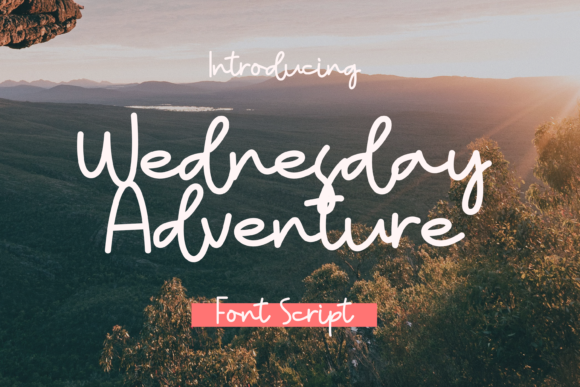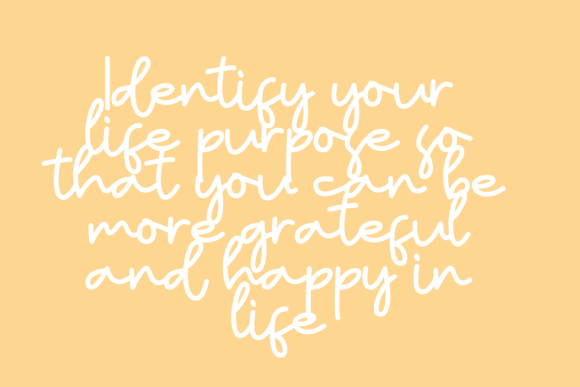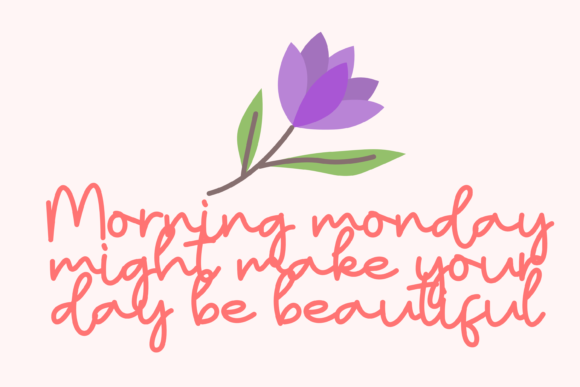
About Wednesday Adventure Font
Wednesday Adventure is a delightful handwritten font that brings a sense of sweetness and friendliness to your designs. With its natural and unique style, this font is incredibly versatile and suitable for a wide range of creative projects.
The friendly and approachable nature of Wednesday Adventure makes it a perfect choice for various design applications. Whether you’re working on greeting cards, invitations, social media graphics, branding materials, or any other project, Wednesday Adventure adds a delightful and welcoming vibe.
The handwritten quality of Wednesday Adventure adds an authentic and personal feel to your text. Each letter is crafted with care, capturing the organic flow and playful energy of handwriting. This font brings a sense of whimsy and charm to your designs, making them more approachable and engaging.
Wednesday Adventure encourages imagination and creativity. Its unique style opens up a world of possibilities, allowing you to explore different design layouts, color combinations, and decorative elements. Let your creativity soar and create designs that reflect your unique style and vision.
Whether you’re creating a logo, designing stationery, crafting handwritten quotes, or adding a personal touch to your digital creations, Wednesday Adventure brings a sense of joy and creativity to your projects. Its natural and friendly style resonates with people, making your designs more relatable and appealing.
In conclusion, Wednesday Adventure is a sweet and friendly handwritten font that adds a touch of whimsy and creativity to your designs. Its natural and unique style makes it suitable for a wide range of projects, and its versatility allows you to explore endless design possibilities. Embrace the playful charm of Wednesday Adventure and let it inspire your imagination.